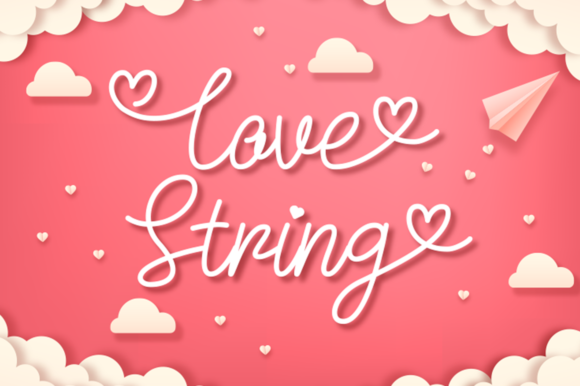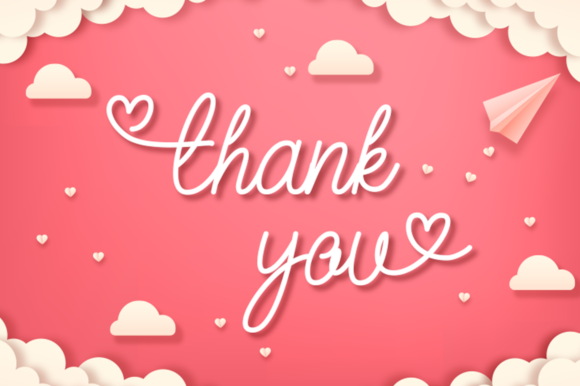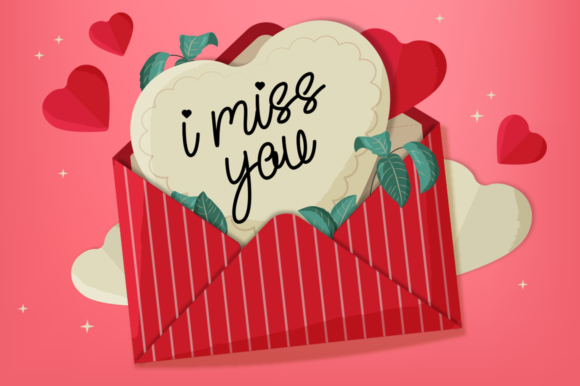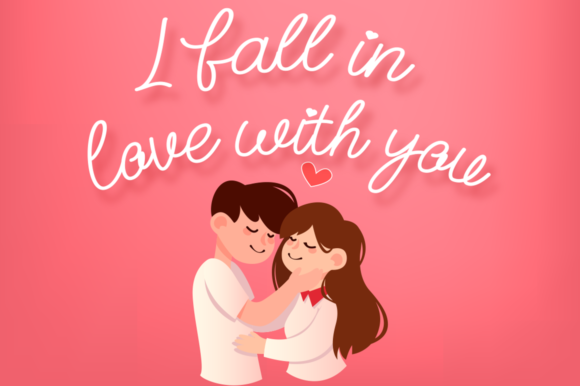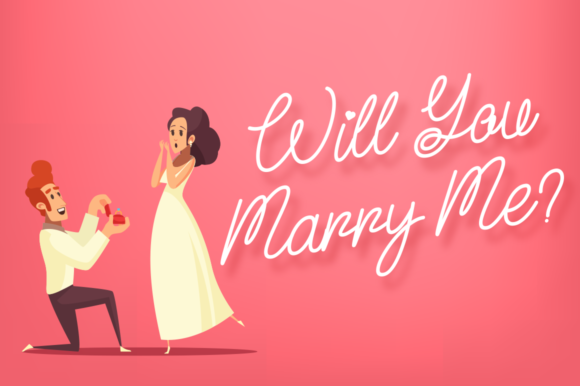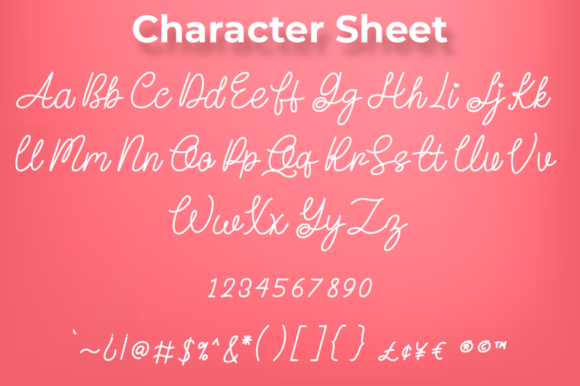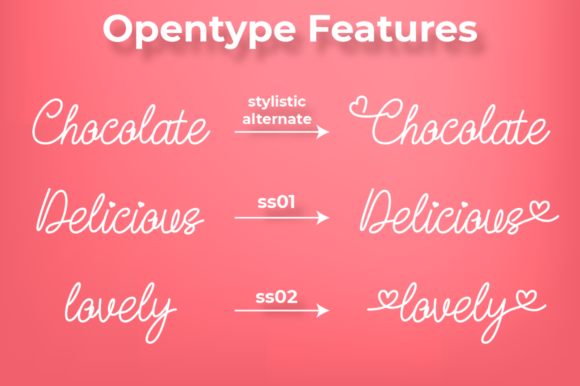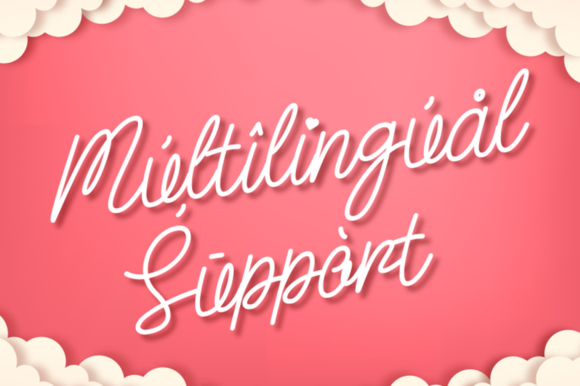
HomeScript FontsLove String Font Script Fonts Love String Font FacebookXPinterestWhatsApp Love String Font Poster 2 Love String Font Poster 3 Love String Font Poster 4 Love String Font Poster 5 Love String Font Poster 6 Love String Font Poster 7 Love String Font Poster 8 Love String Font Poster 9 Love String Font Poster 10 About Love String Font Love String is a lovely script font with a unique style. It will add a romantic touch to any crafting project! DOWNLOAD NOW People also explored Singadia Font Diore Bonneg Font Orange Juice Font Sticky Candy Qalin Duo Font Rastica Font Brushy Font Work News Font Pumpkin Peak Font 304 0 TagsLove String Font Previous articleXenia Urshina FontNext articleWolven Shevana Font LEAVE A REPLY Cancel reply Comment: Please enter your comment! Name:* Please enter your name here Email:* You have entered an incorrect email address! Please enter your email address here Website: Save my name, email, and website in this browser for the next time I comment. Personal Use Free Planning Personal Use Free Read more about this font New Normal Personal Use Free Read more about this font Mallvirra Personal Use Free Read more about this font Sunflower Personal Use Free Read more about this font BLOG How to Cut Any Font on Cricut: Convert a Font to SVG (Free) Turn any font into a clean SVG so it cuts crisp on Cricut - a quick 3-step workflow using a free font-to-SVG tool. Top 10 Handwritten Fonts That Elevate Your Designs Free vs Paid Fonts: Why Investing in Premium Fonts Is Worth It Transform Your Website: Elevate Your Typography with 7 Best Web Font Generators